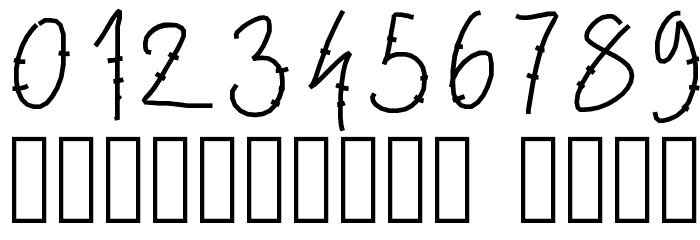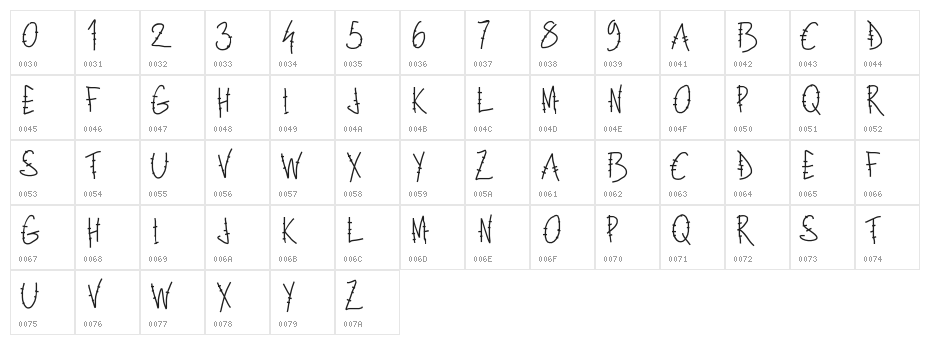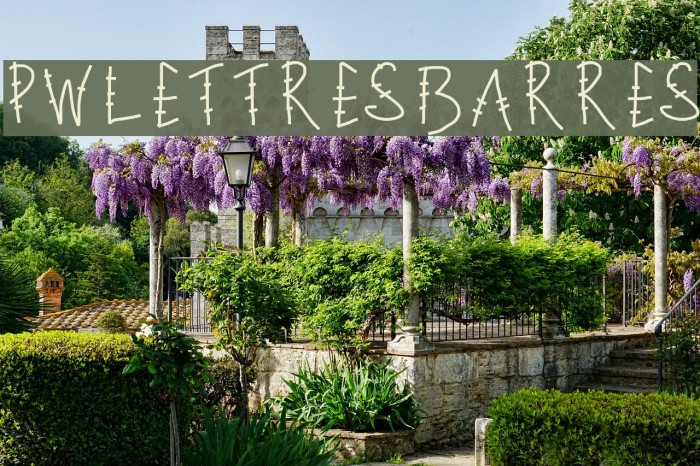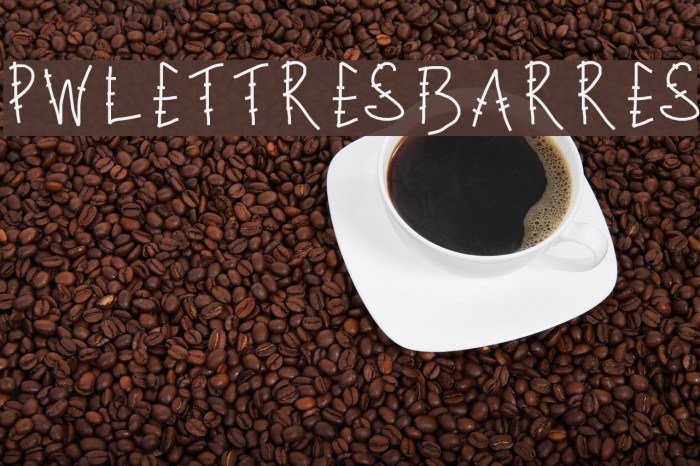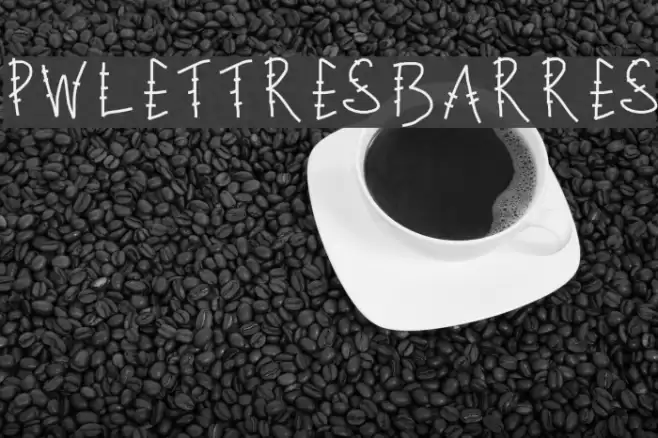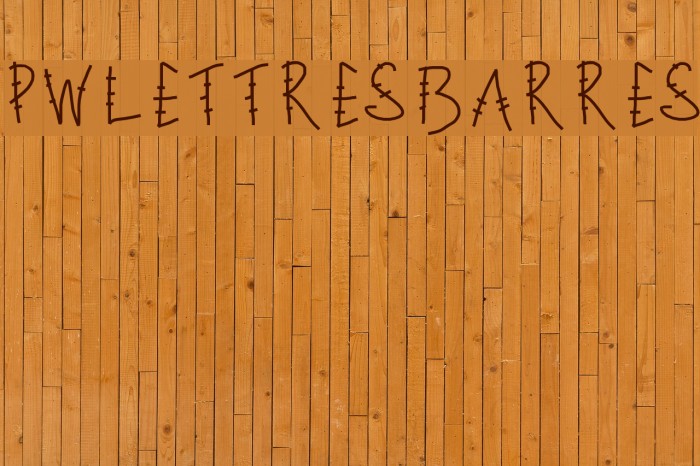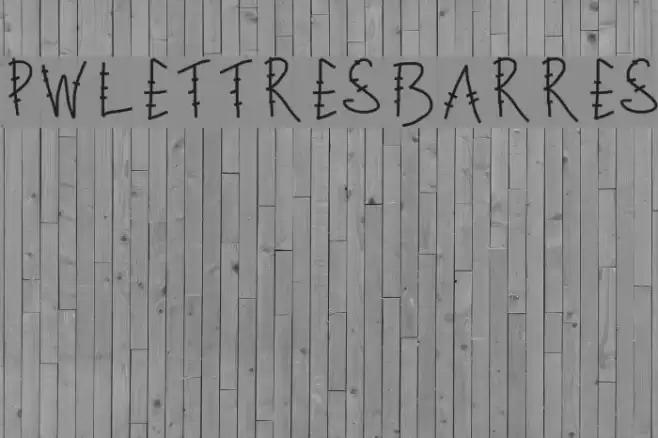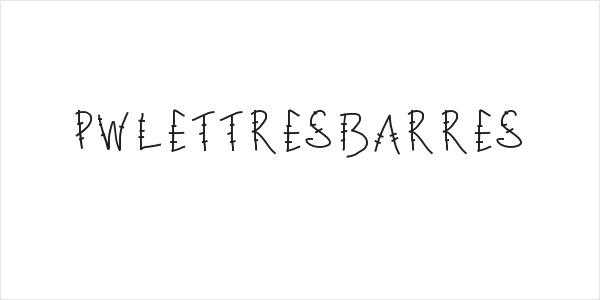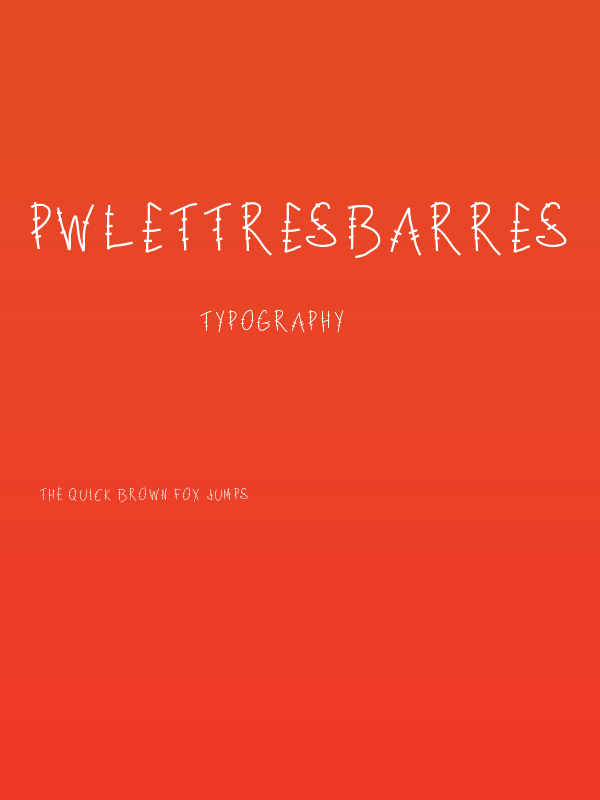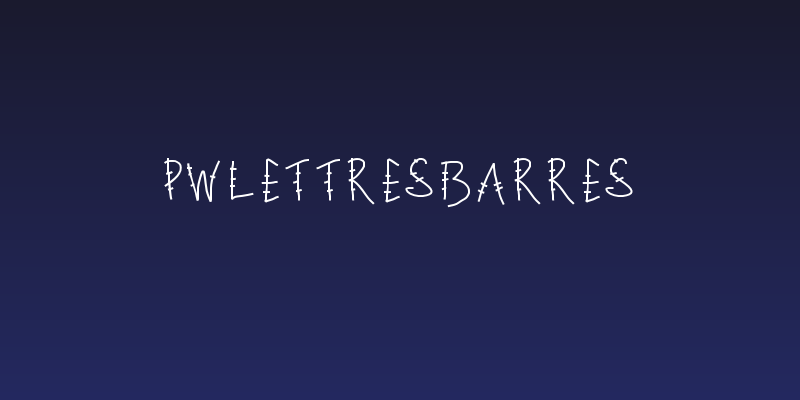
PWLettresbarres Font
PWLettresbarres Description
This font features a distinctive and edgy design, characterized by its barbed wire-like elements that run through each character. The letters have a hand-drawn, uneven quality, giving them a raw and rebellious feel. The uppercase and lowercase letters maintain a consistent style, with sharp angles and irregular curves that add to the font's unique appearance. The numbers follow the same aesthetic, ensuring a cohesive look across all characters. The special characters are framed in boxes, enhancing the font's bold and unconventional style. This font is ideal for projects that require a strong, impactful visual statement.
| Use Case | Logos, Posters, Headlines |
| Proposed Projects | Perfect for album covers, posters, or any design needing a bold, unconventional look. |